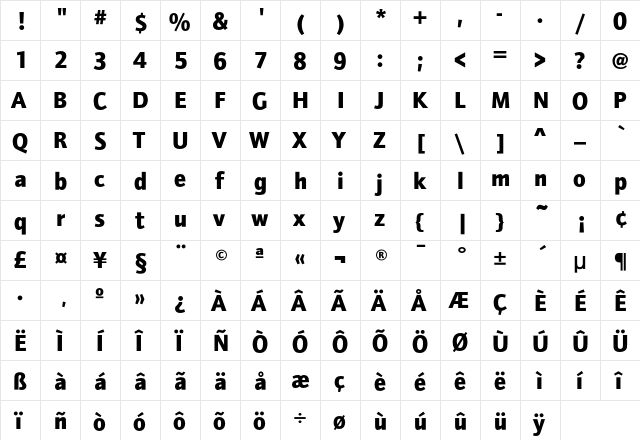
FoundryJournal-Bold Regular
Design Context for FoundryJournal-Bold Typeface
FoundryJournal-Bold offers clean, dependable letterforms without strong stylistic allegiance, making it a practical choice for designers who need flexibility. The heavy weight commands attention and anchors typographic hierarchies.